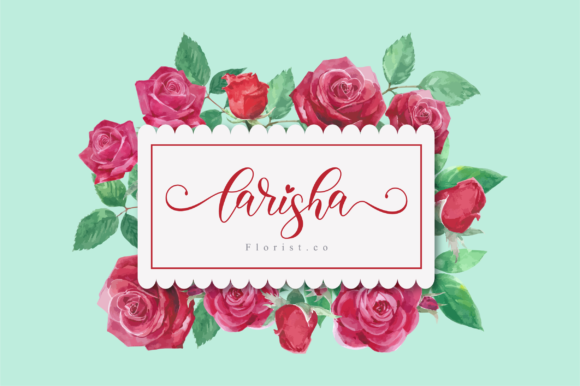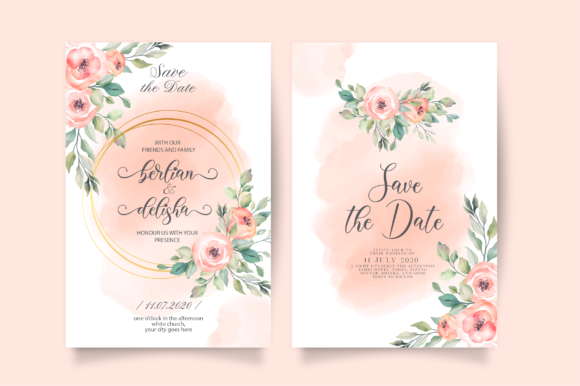
Bianca Script Font
db-ku.com - Script & Handwritten -- Bianca is a beautiful and elegant script font. Its modern and classy look makes it the perfect font for creating outstanding DIY projects!